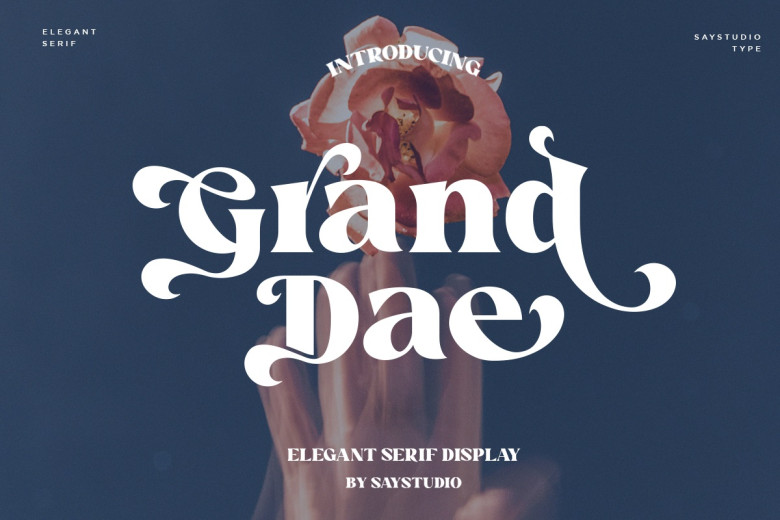
Grand Dae Font
Grand Dae is a contemporary sophisticated display serif font. Perfect for logos, branding and social media as well as print designs such as prints on shirts or stickers with stickers for social media use! Grand Dae stands out because it can be utilized across a wide variety of design styles; whether boho-free-spirited designs or sophisticated editorial.
Grand Dae Serif Font